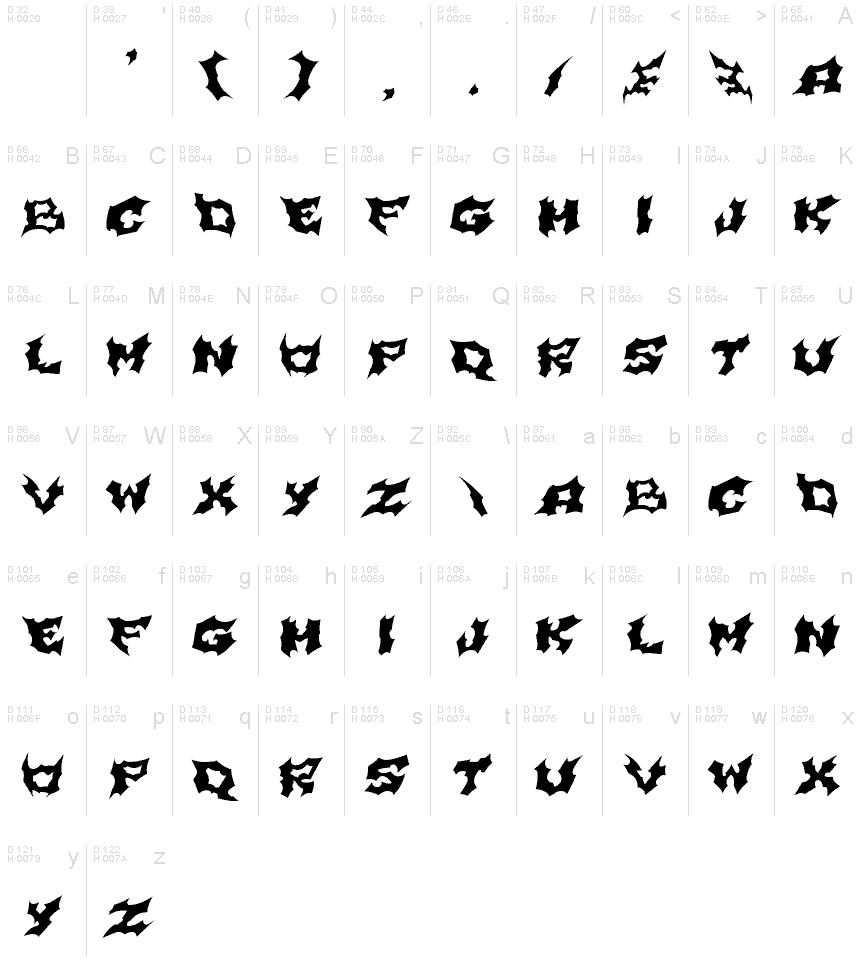
DEMON Regular
Demon font by McDamie is a unique expanded display font with a scary design style. This wicked grotesque typography has sharp aggressive edges along with some gothic influences. It sets an intense and rebellious atmosphere that stands out in any visual. Furthermore, being bold makes its presence even more recognized wherever it is used.
Make it part of your book cover, poster design, album cover, art-related project, or artistic presentation. Other top uses include theatre set design applications, magazine scripts or headlines, professional titles as well as digital artwork combinations among others. Additionally remarkable for illustrative purposes due to its rare glyphs sometimes preferred by artists themselves looking for inspiration!